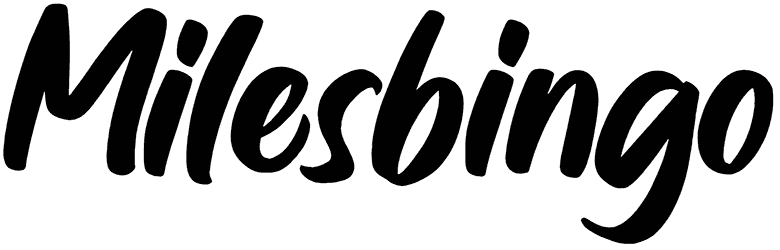
Milesbingo Font
Let’s benefit from this soft handwritten font for your new modern design to give it a casual and urban feeling. The friendly and appealing mood of the Milesbingo font will make your daily Instagram story sweet. Put this brush font on your artistic layout and leave a nice first impression on your viewers.